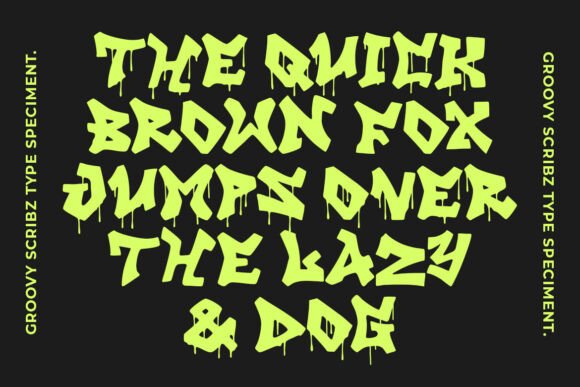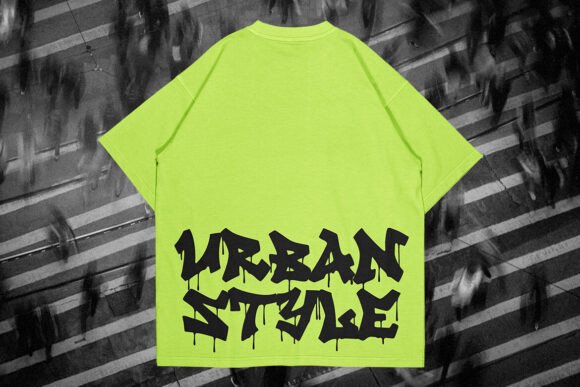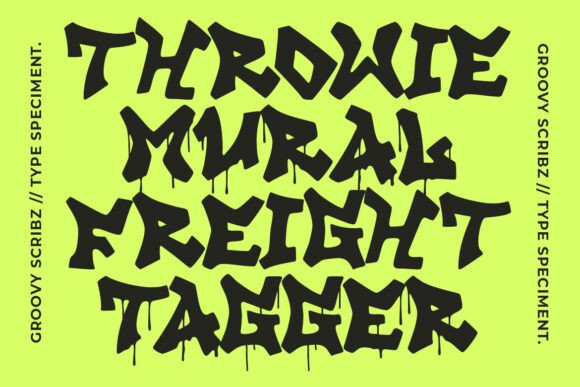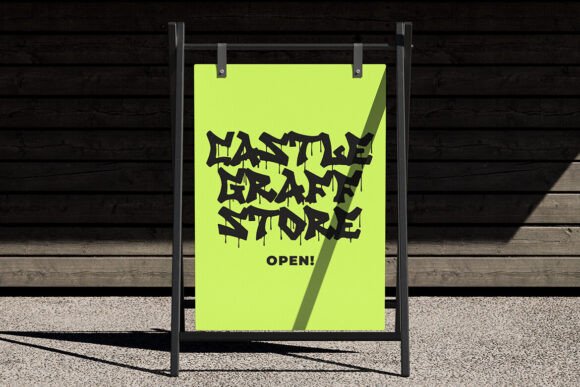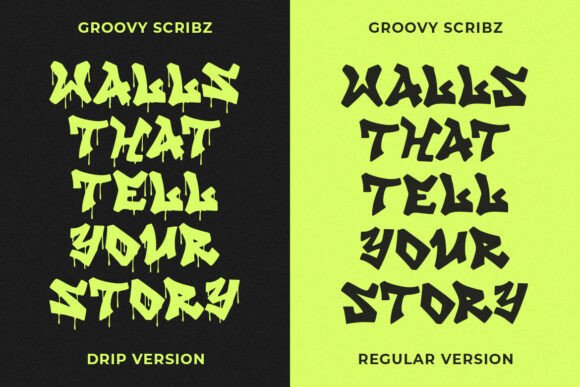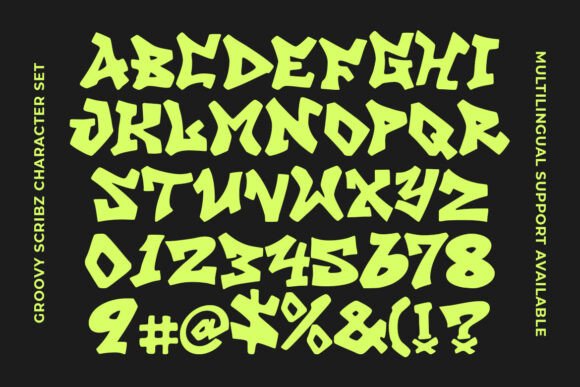
Introduction to Groovy Scribz Font
Groovy Scribz is a vibrant and expressive handdrawn graffiti font that captures the essence of street art.
Inspired by the bold and dynamic writings found on city walls, this font exudes an urban and edgy vibe With two versions available – regular and drip style – Groovy Scribz offers versatility and creativity for any design project.
Key Features of Groovy Scribz Font